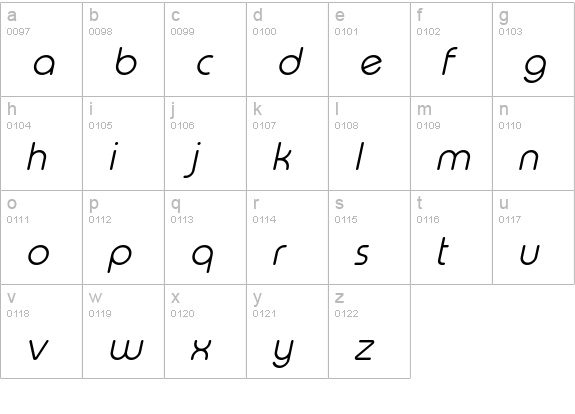
Typo Round Light Italic Demo Font Details
Typo Round Light Italic Demo is a refined, elegant, italic variant in the Typo typeface family \xE2\x80\x94 well suited to elegant body text, refined sub-headings, and luxury branding.
Typo Round Light Italic Demo font is a modern and stylish typeface that exudes elegance and sophistication. Its delicate and slanted letters give a unique touch to any design, making it perfect for adding a touch of finesse to your projects. This font is not only aesthetically pleasing but also highly versatile. Its rounded edges and soft curves create a friendly and approachable feel, making it suitable for a wide range of applications, from branding and advertising to packaging and web design. The Typo Round Light Italic Demo font is designed with attention to detail, ensuring that each letter flows seamlessly into the next, creating a harmonious and visually pleasing text. The light weight of the font adds a subtle and airy feel, making it perfect for headlines, titles, and other display purposes. What makes this font even more appealing is that it is available for free download at FontsMarket.com. This means that you can easily access and use this font in your design projects without any cost. Whether you are a professional designer or a hobbyist, this free font is a valuable addition to your typographic toolbox. With its elegant and versatile design, the Typo Round Light Italic Demo font is sure to elevate the look and feel of your designs. Don't miss out on the opportunity to download this free font and enhance your creative projects. Visit FontsMarket.com today and add this stunning font to your collection.